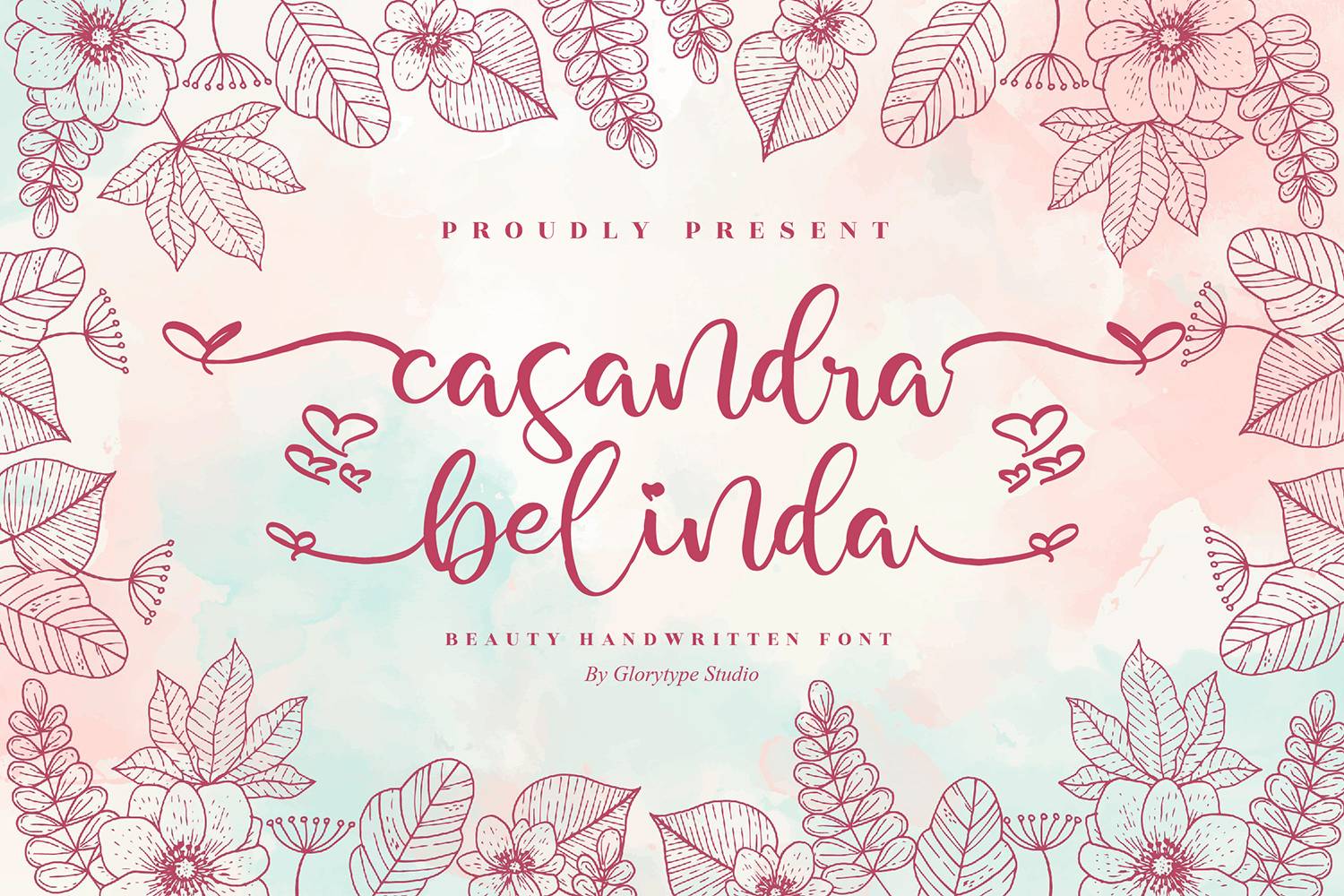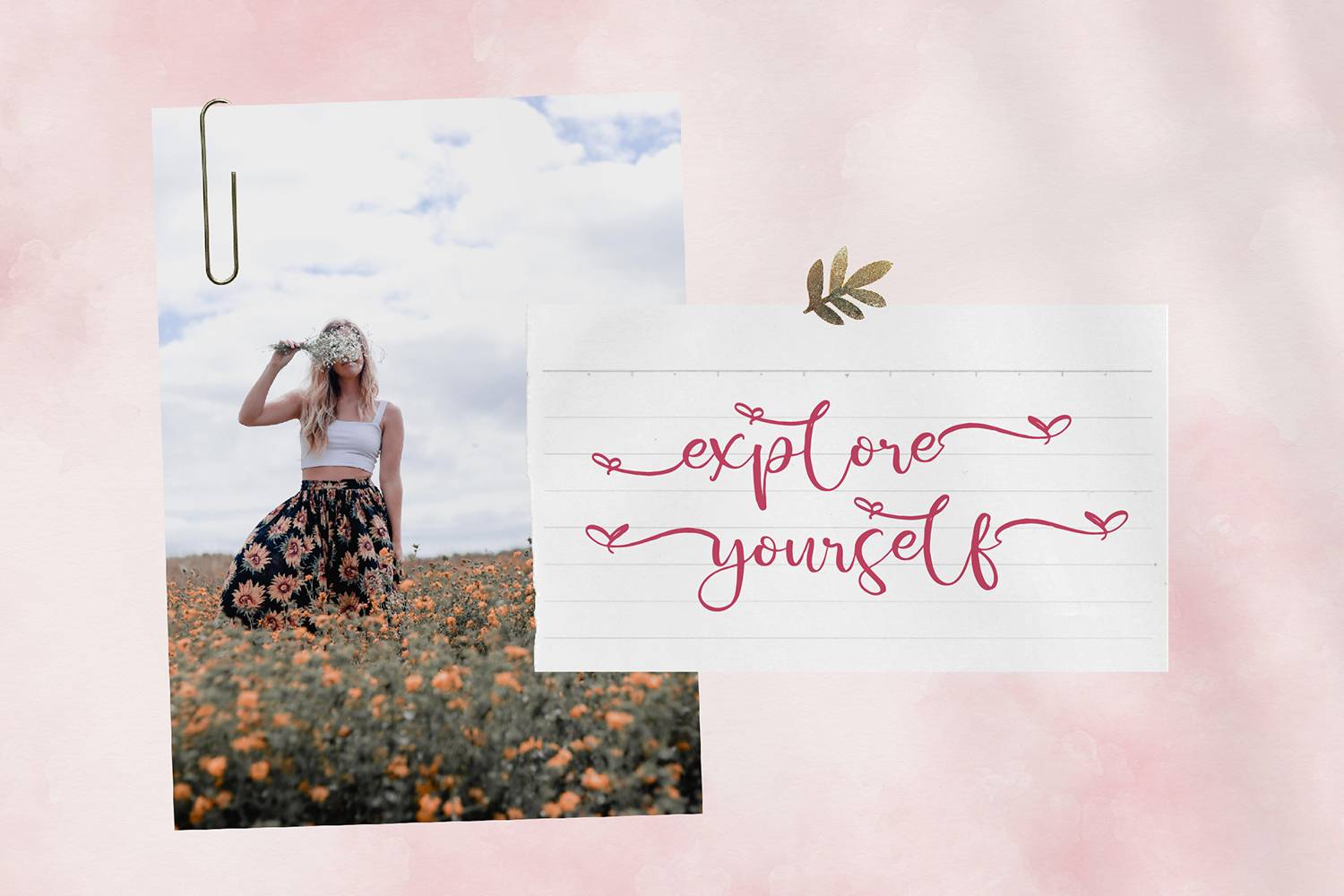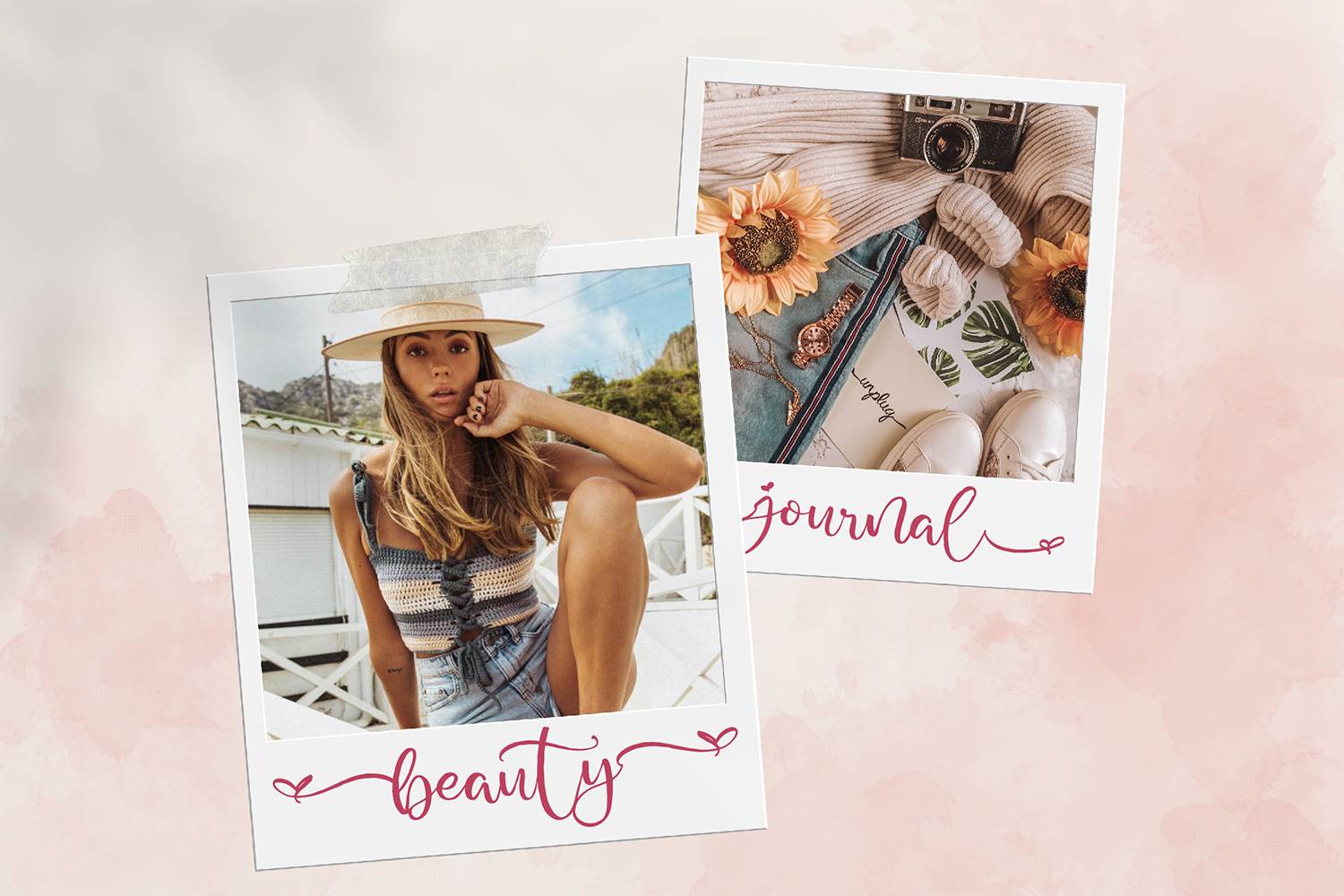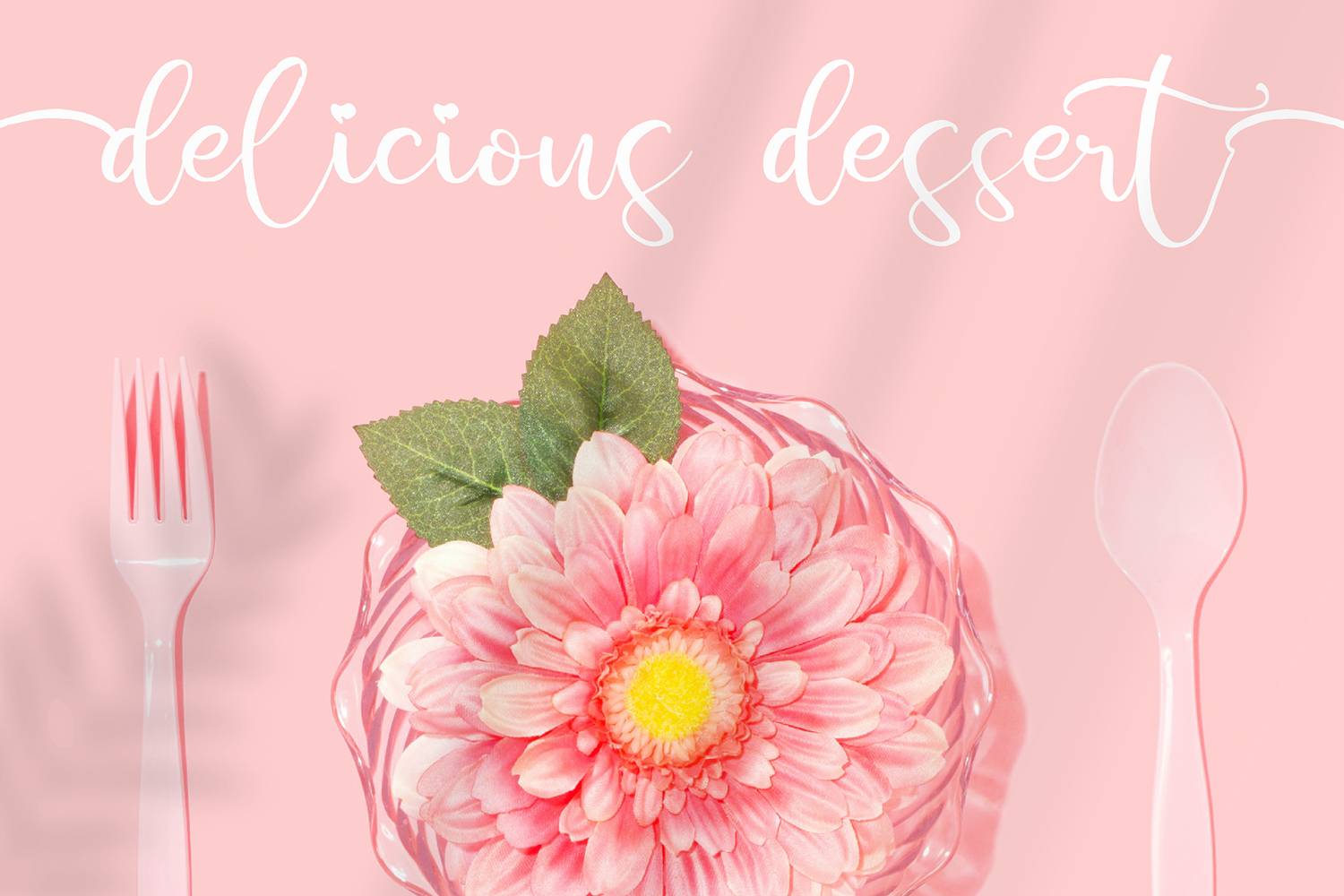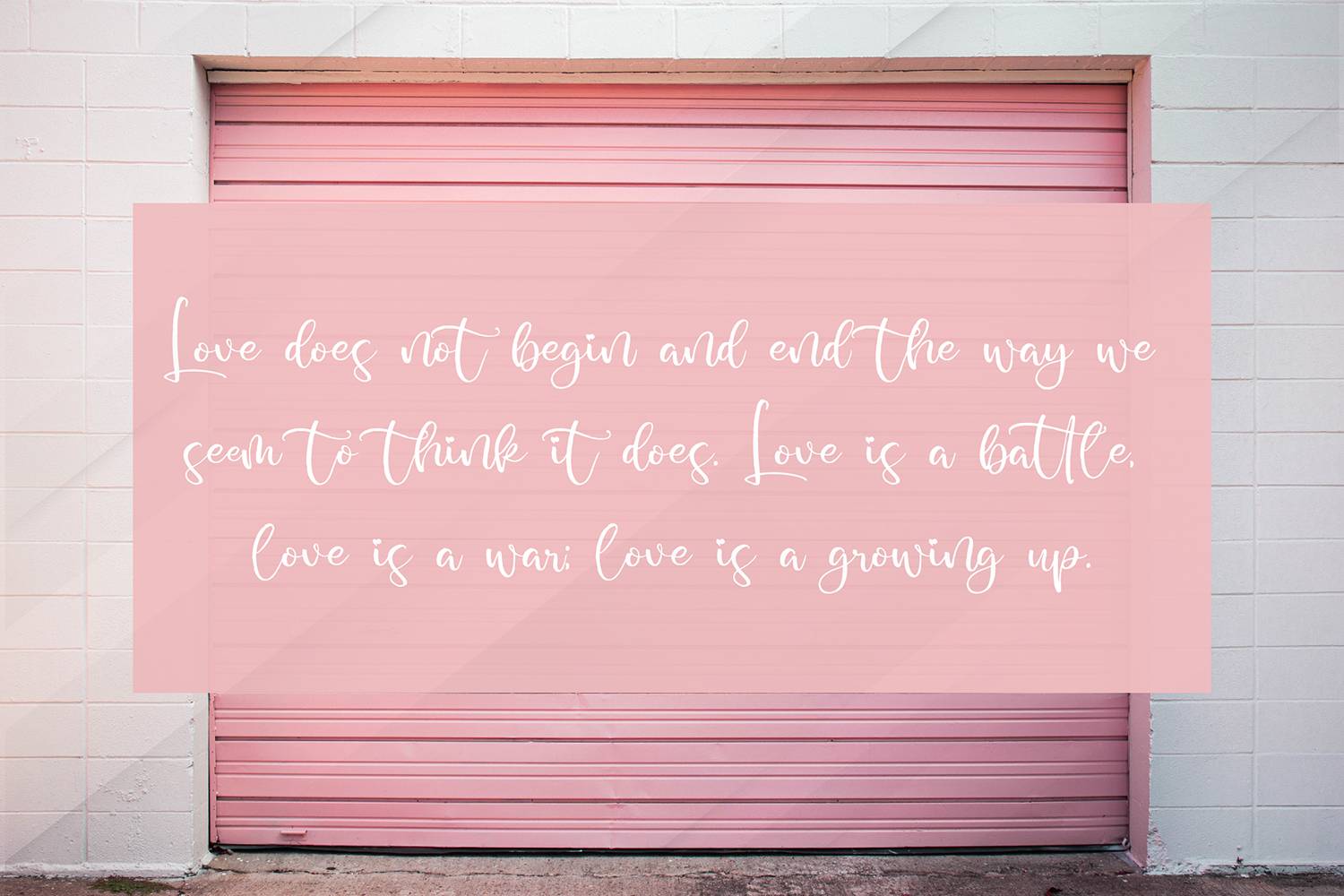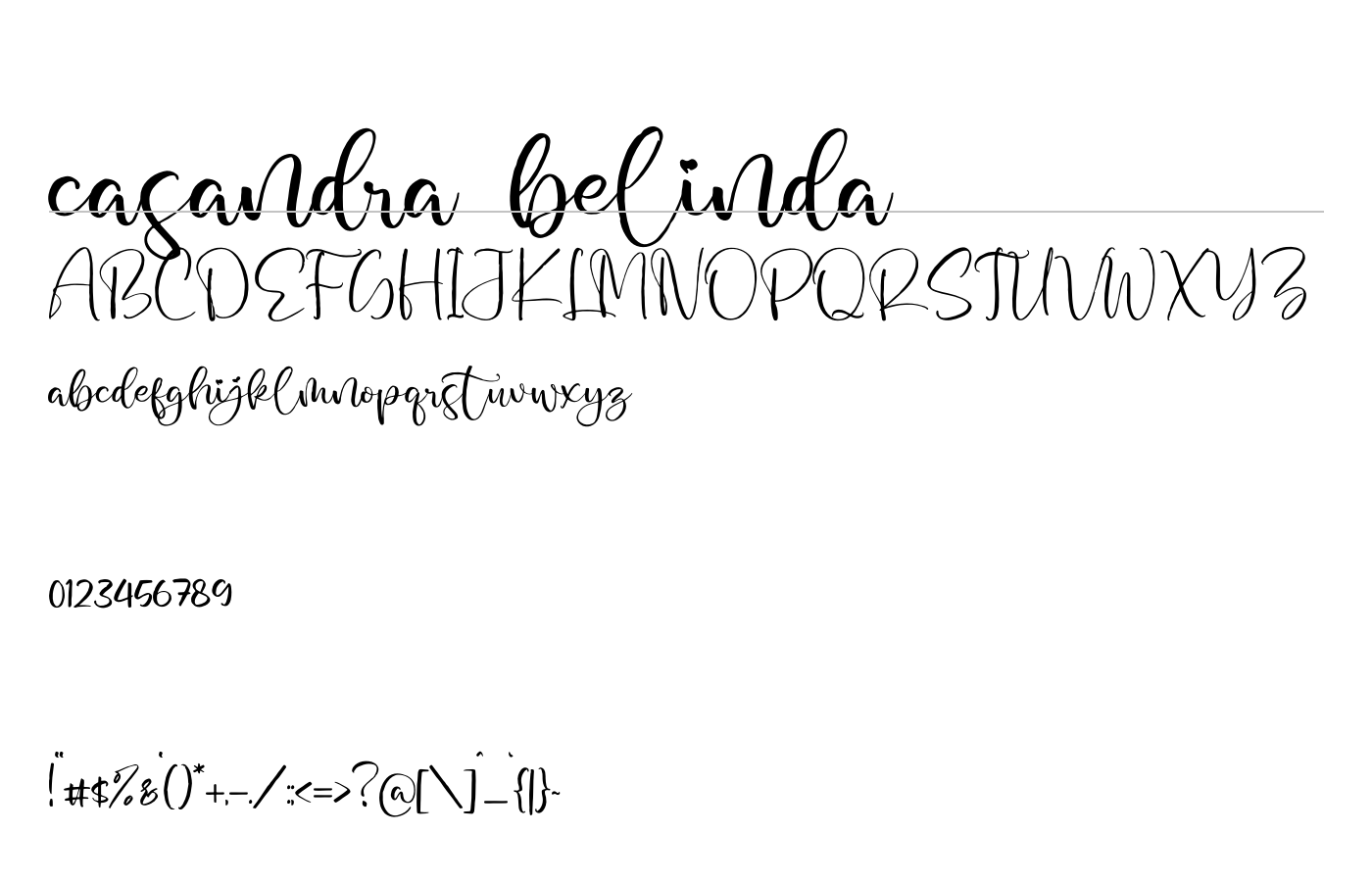
Casandra Belinda is an elegant script font that blends playful charm with delicate sophistication. Its flowing, hand-drawn style features a smooth weight with unique, looping letterforms and a lively personality, making it ideal for feminine branding, invitations, and creative projects that seek a personal, stylish touch. This font works best in headlines, logos, or decorative text where a warm and inviting feel is desired.
Casandra Belinda Font